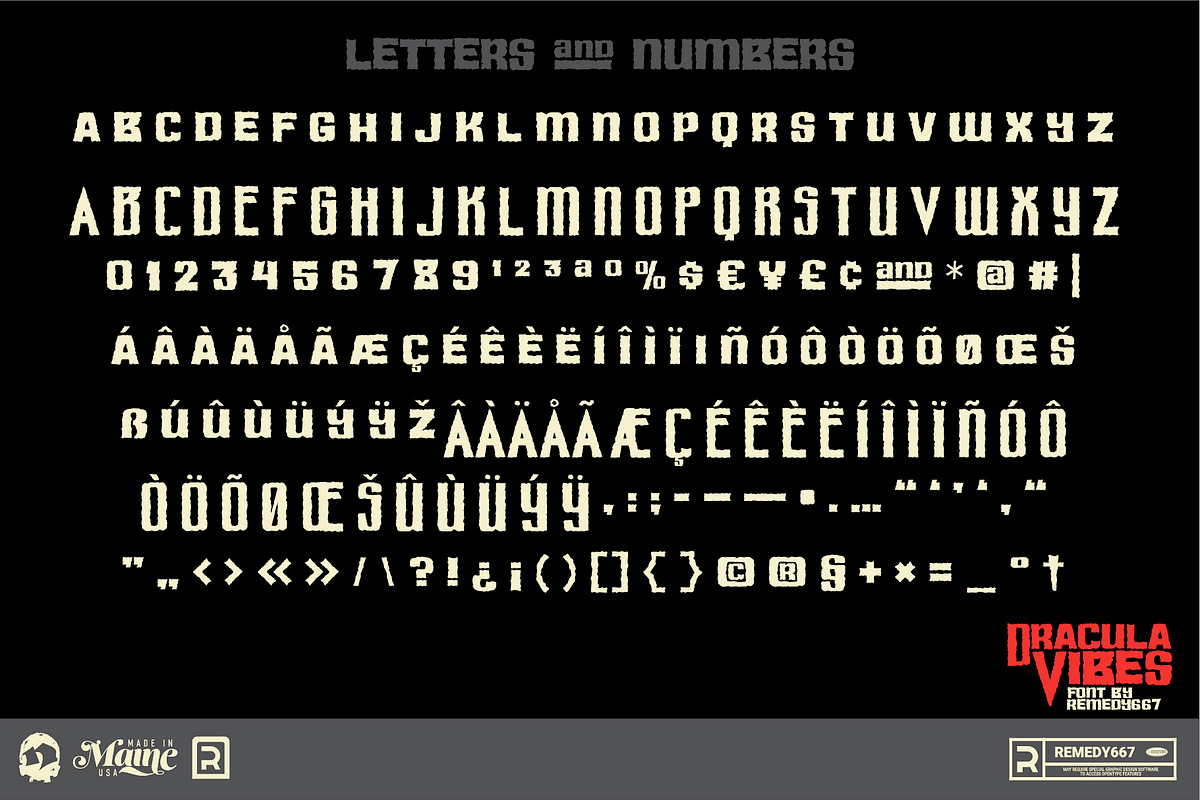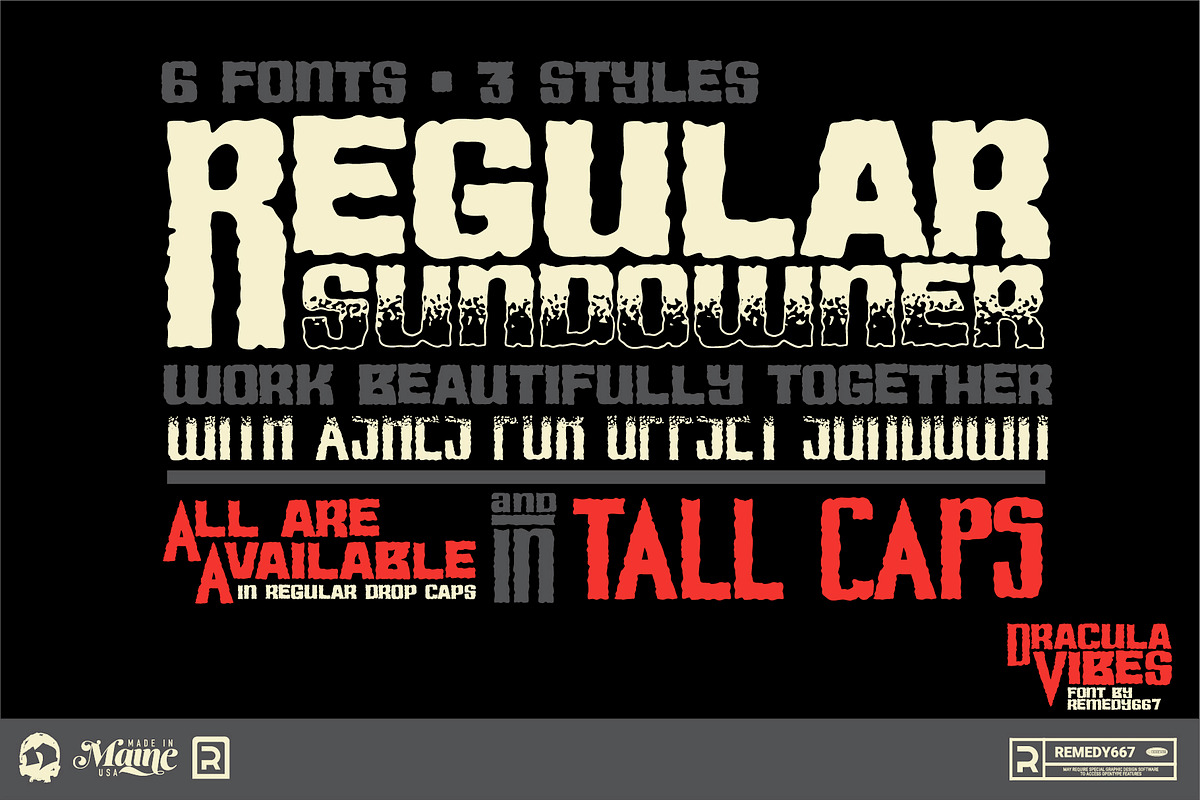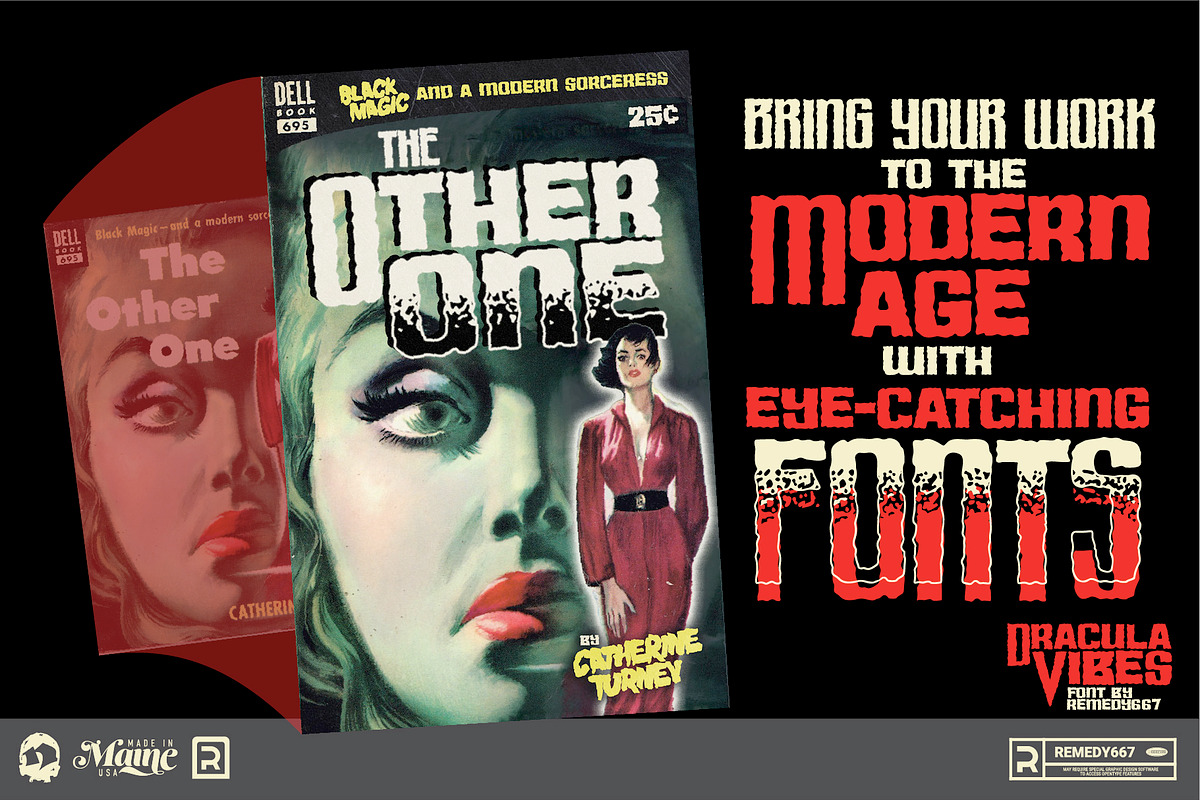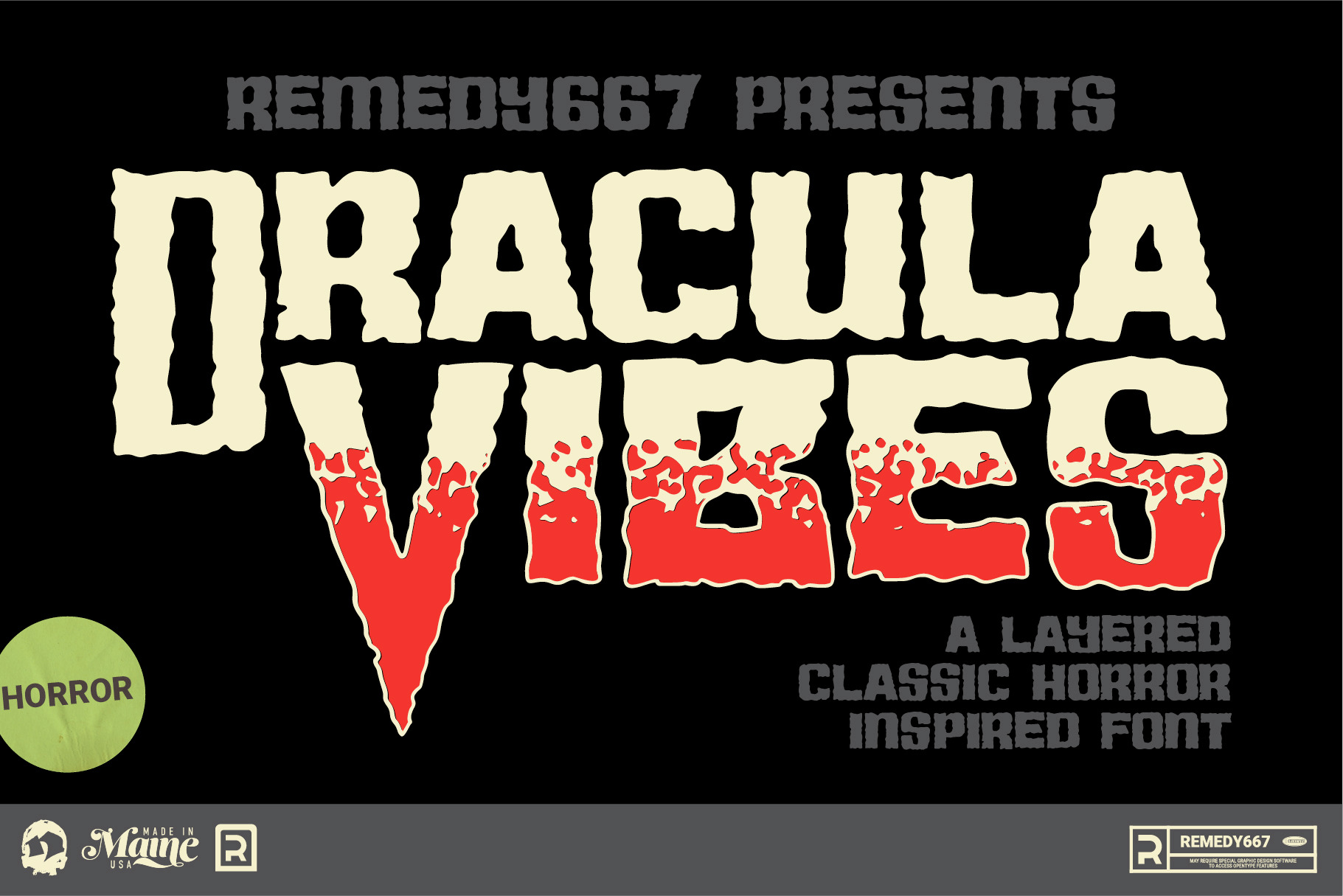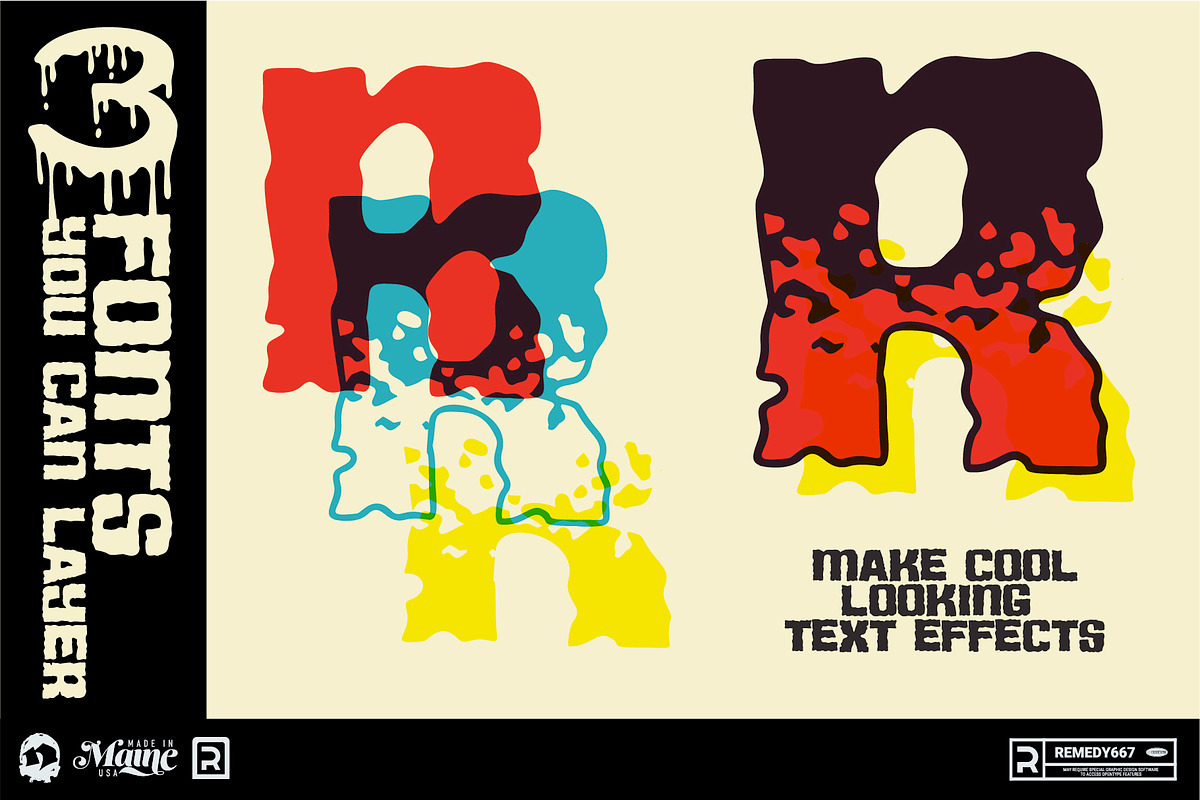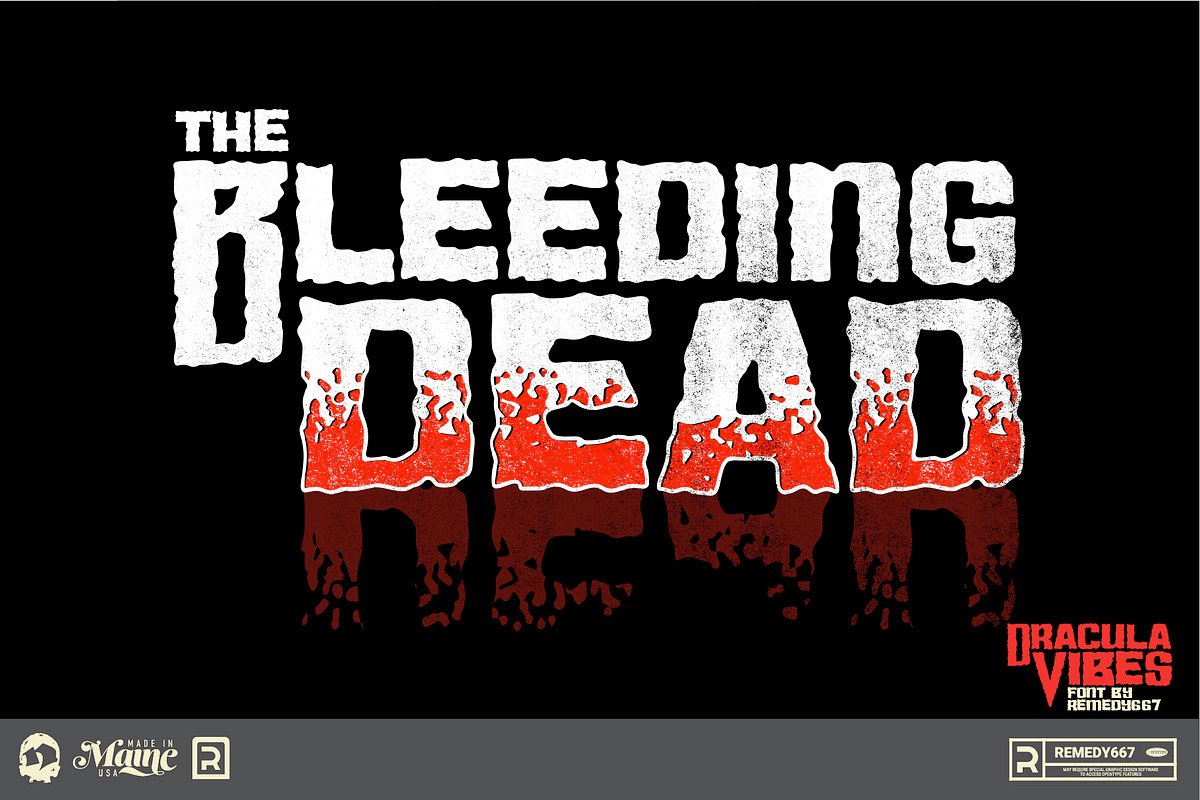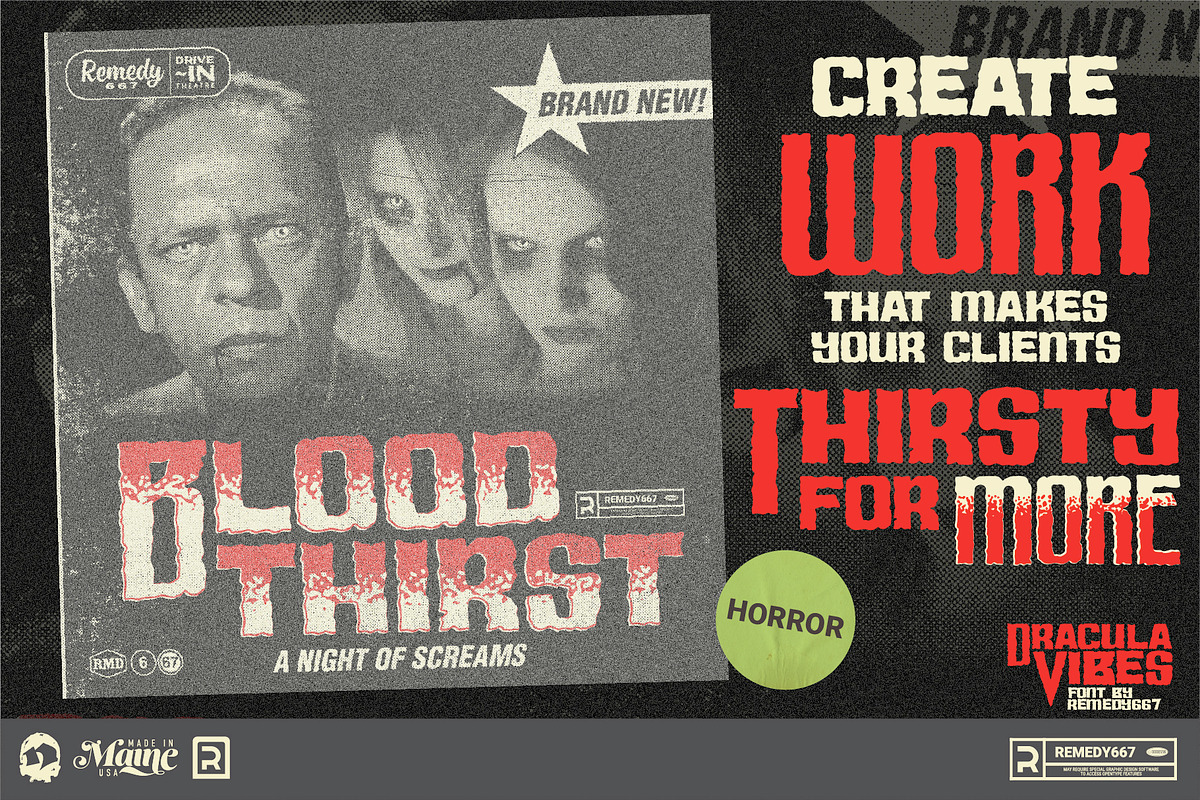
Dracula Vibes - Layered Horror Font
Dracula Vibes is a layered font with a gothic style that is perfect for any of your horror-themed projects. Don’t live in the shadows of other fonts, create the perfect text with Dracula Vibes. Achieve that gothic horror, vampire feel that only Dracula Vibes can provide.
Dracula Vibes comes in all caps and tall caps with 3 different variations of each: Regular, Sundowner, and Ashes. That’s 6 fonts! Bring your work to the modern age with eye-catching fonts. Raise the stakes with Dracula Vibes.
- Layered font to give your typography more depth!
- Vampires love this font.
- Includes All Caps and Tall Caps version for more variation.